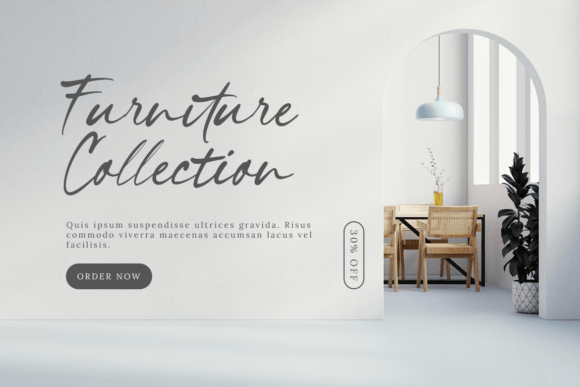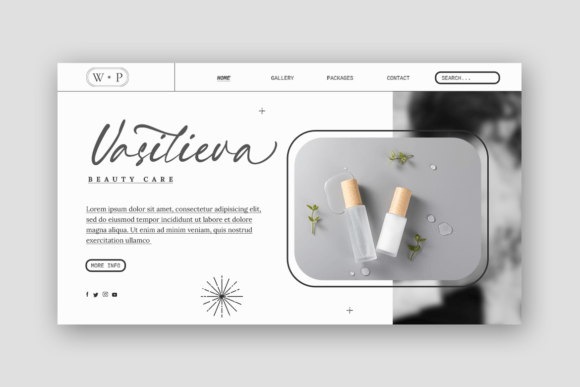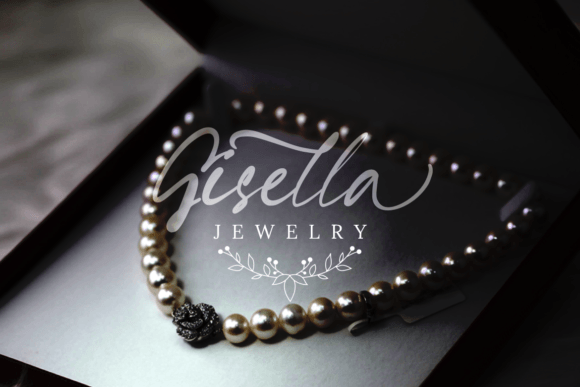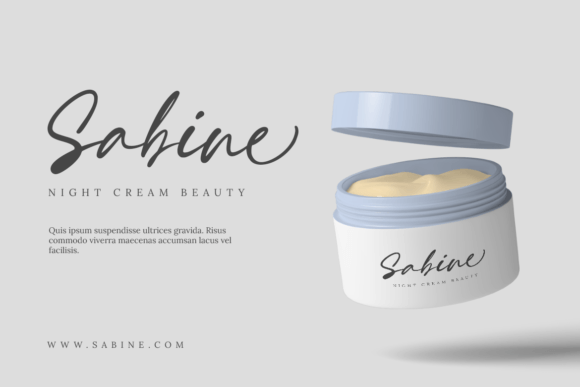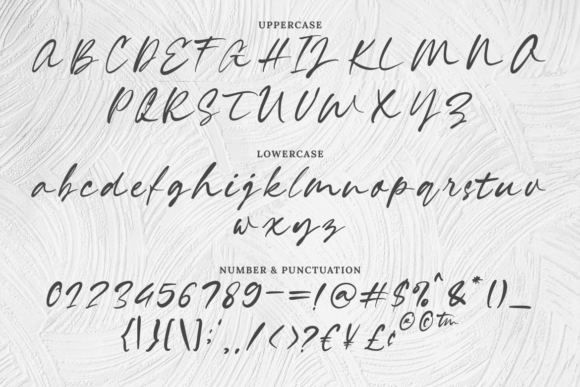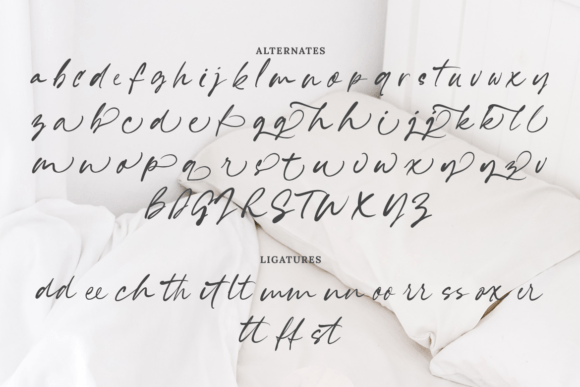
Introducing Gracelynn Font: The Ultimate Clean and Flowy Typeface for Designers
Are you tired of using overused and generic fonts in your design projects? Look no further than Gracelynn Font, a beautiful and versatile typeface that is perfect for every design need. With its clean and flowy style, Gracelynn is ideal for a wide range of applications, from branding and logo design to wedding designs, social media posts, and more.
A Perfect Blend of Elegance and Versatility
Gracelynn Font is a handwriting-style typeface that exudes elegance and sophistication. Its clean lines and flowing curves make it perfect for designs that require a touch of personality and whimsy. Whether you’re working on a branding project, creating a logo, or designing social media posts, Gracelynn is the perfect choice. Its versatility also makes it suitable for a wide range of industries, from fashion and beauty to food and lifestyle.
Endless Design Possibilities with Gracelynn
One of the best things about Gracelynn Font is its endless design possibilities. The font comes with a range of glyphs and swashes that can be accessed effortlessly thanks to its PUA (Private Use Area) encoding. This means that you can easily add a personal touch to your designs and make them stand out from the crowd. With Gracelynn, you can create stunning designs that showcase your creativity and style.
Gracelynn Font is a must-have for designers and crafters who want to add a touch of elegance and sophistication to their work. Whether you’re a professional designer or a DIY enthusiast, Gracelynn is the perfect choice for any project that requires a handwriting-style typeface. Its clean and flowy style makes it perfect for a wide range of applications, including:
- Branding projects
- Logo design
- Wedding designs
- Social media posts
- Advertisements
- Product packaging
- Product designs
- Labels
- Photography
- Watermarks
- Invitations
- Stationery
Key Features of Gracelynn Font
Here are some of the key features that make Gracelynn Font a must-have for designers and crafters:
- Clean and flowy typeface
- Perfect for branding projects, logo design, and more
- Endless design possibilities
- Suitable for a wide range of industries and applications
Tips for Using Gracelynn Font
Here are some tips for using Gracelynn Font in your design projects:
- Experiment with different font sizes and colors to create a unique look
- Use the glyphs and swashes to add a personal touch to your designs
- Pair Gracelynn with other fonts to create a stunning contrast
- Use Gracelynn for headlines, titles, and quotes to add a touch of elegance